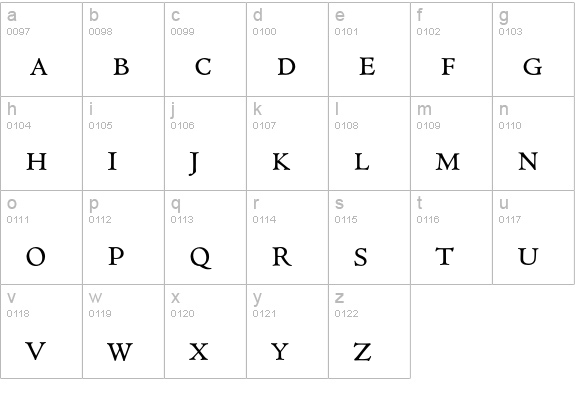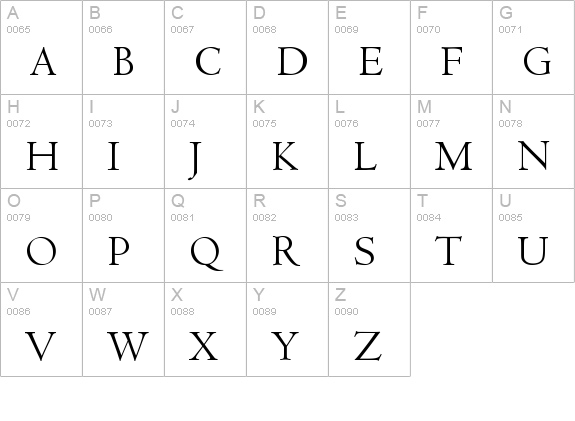
Centaur Expert BQ Roman Font Details
Centaur Expert BQ Roman font is a classic and elegant typeface designed for those who appreciate sophistication and timeless beauty in typography. With its graceful serifs and balanced proportions, this font exudes a sense of refinement and professionalism. Perfect for use in editorial design, branding, and other high-end applications, Centaur Expert BQ Roman font is a versatile choice that can elevate any project. Its readability and versatility make it a go-to option for designers looking to add a touch of sophistication to their work. And the best part? Centaur Expert BQ Roman font is available for free download at FontsMarket.com, making it accessible to everyone who wants to enhance their design projects with this exquisite typeface. Don't miss out on the opportunity to add this stunning font to your collection today!